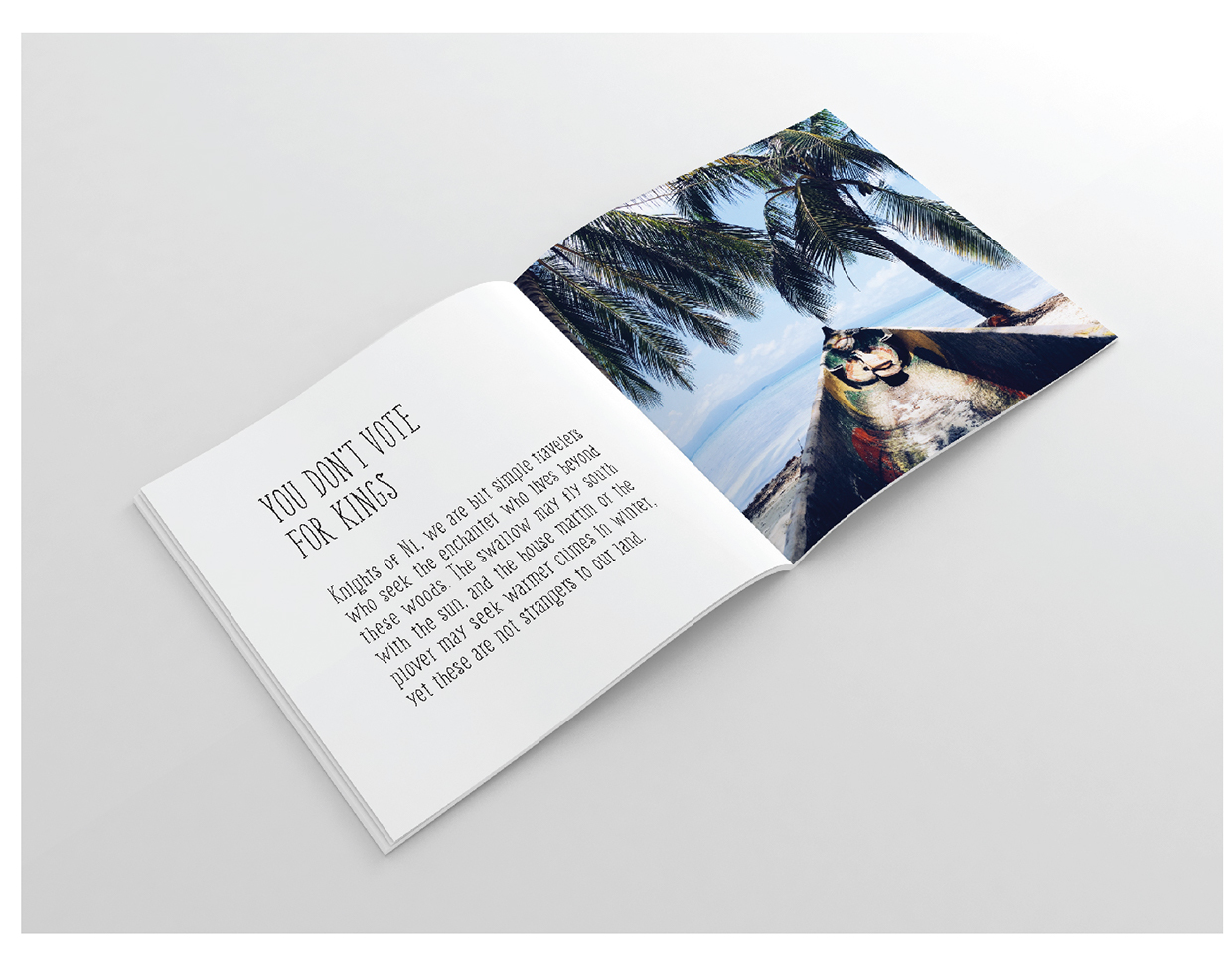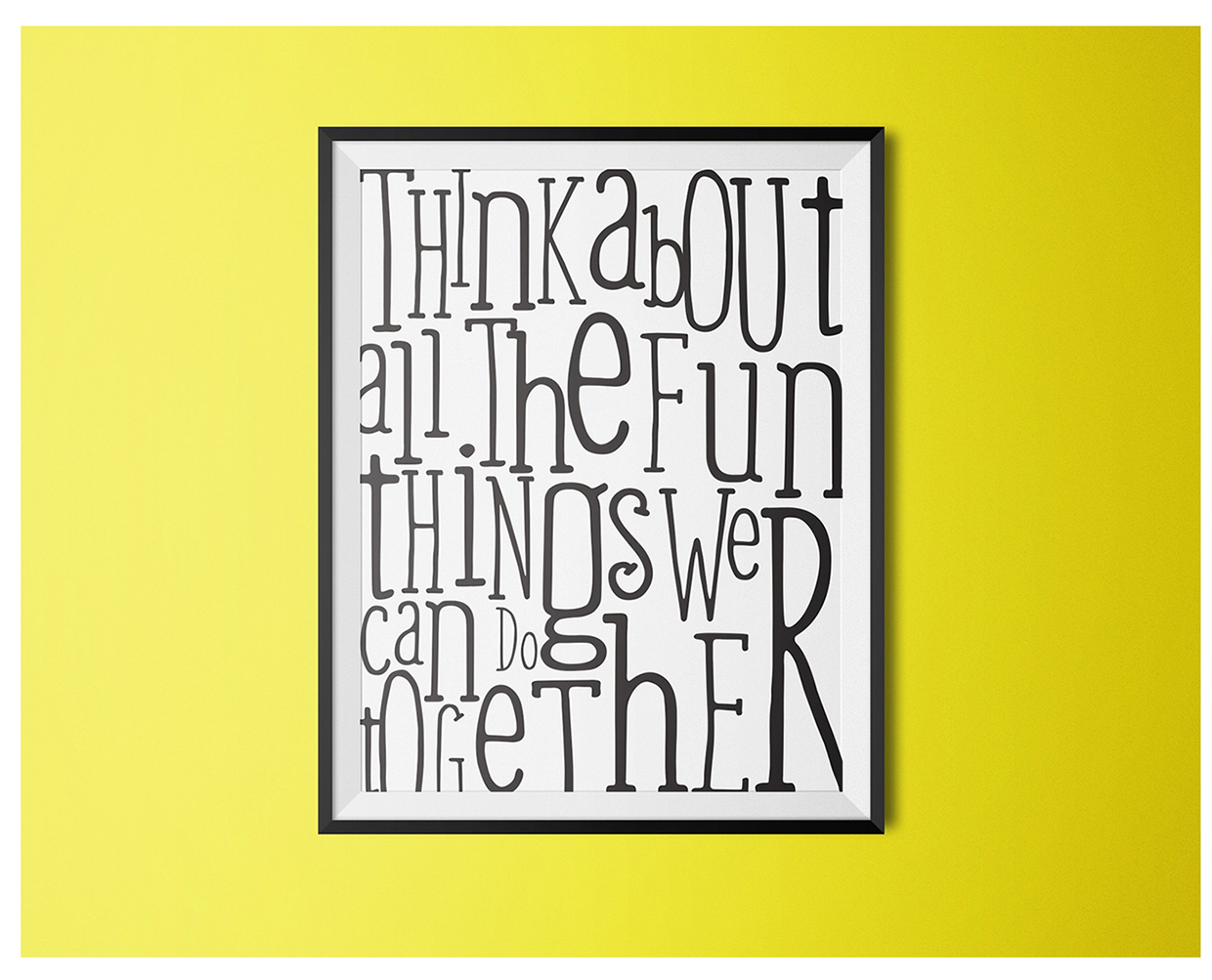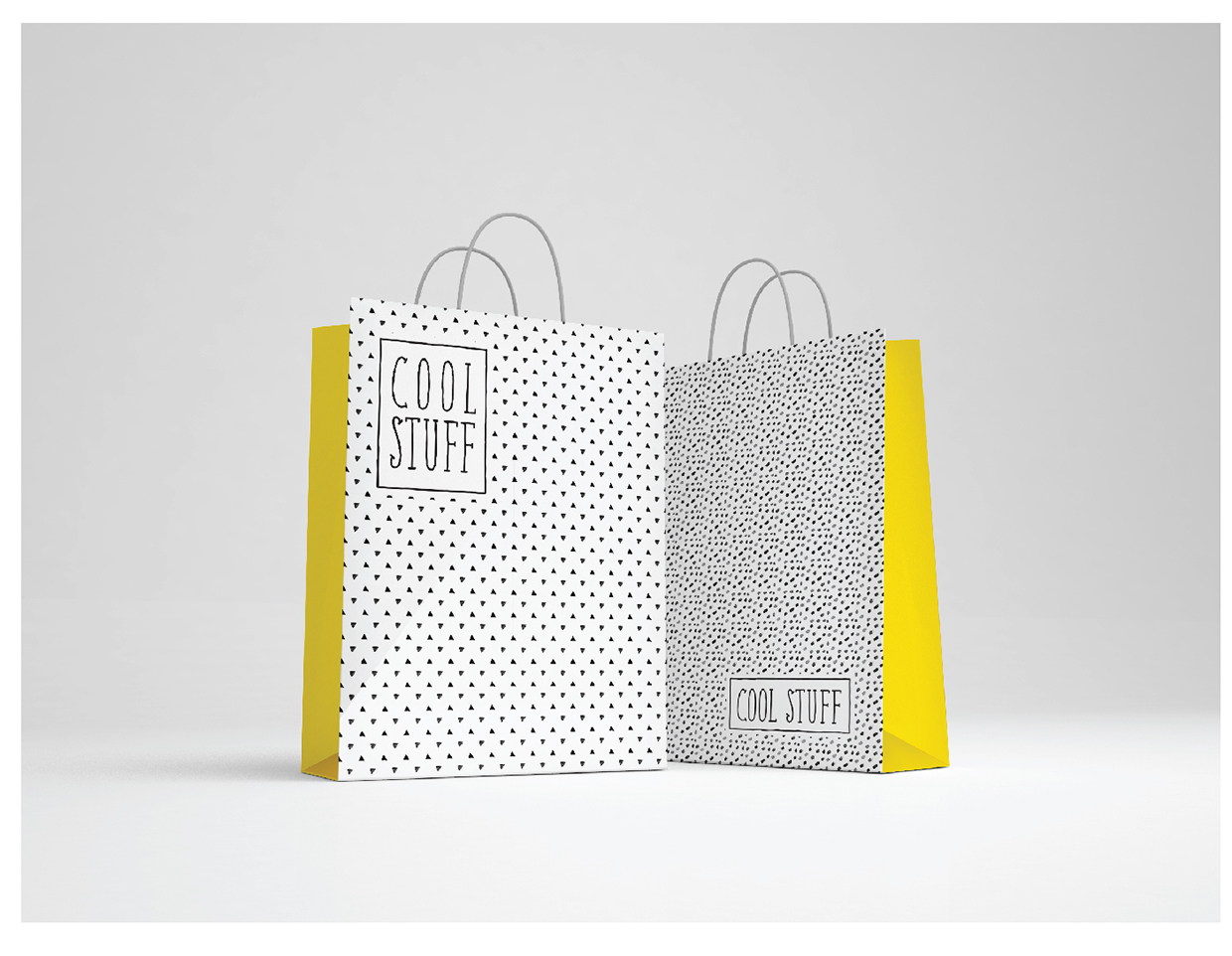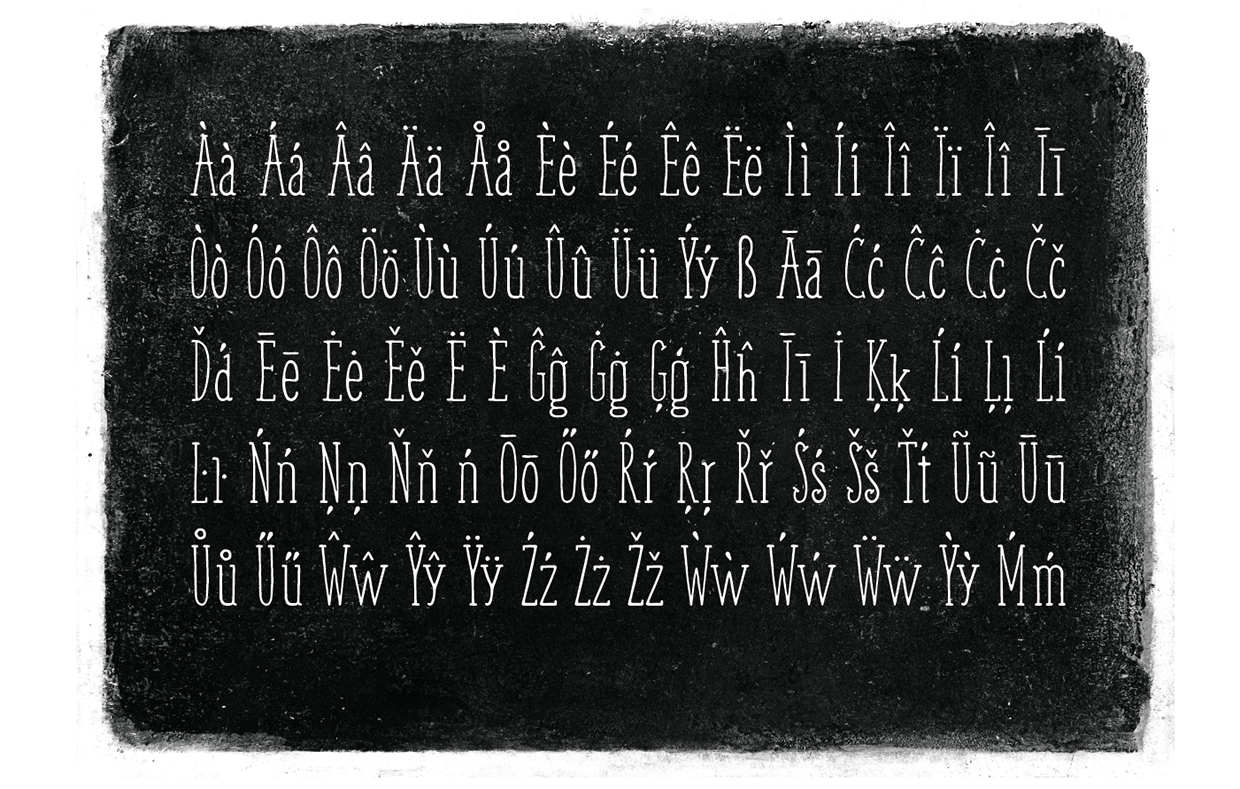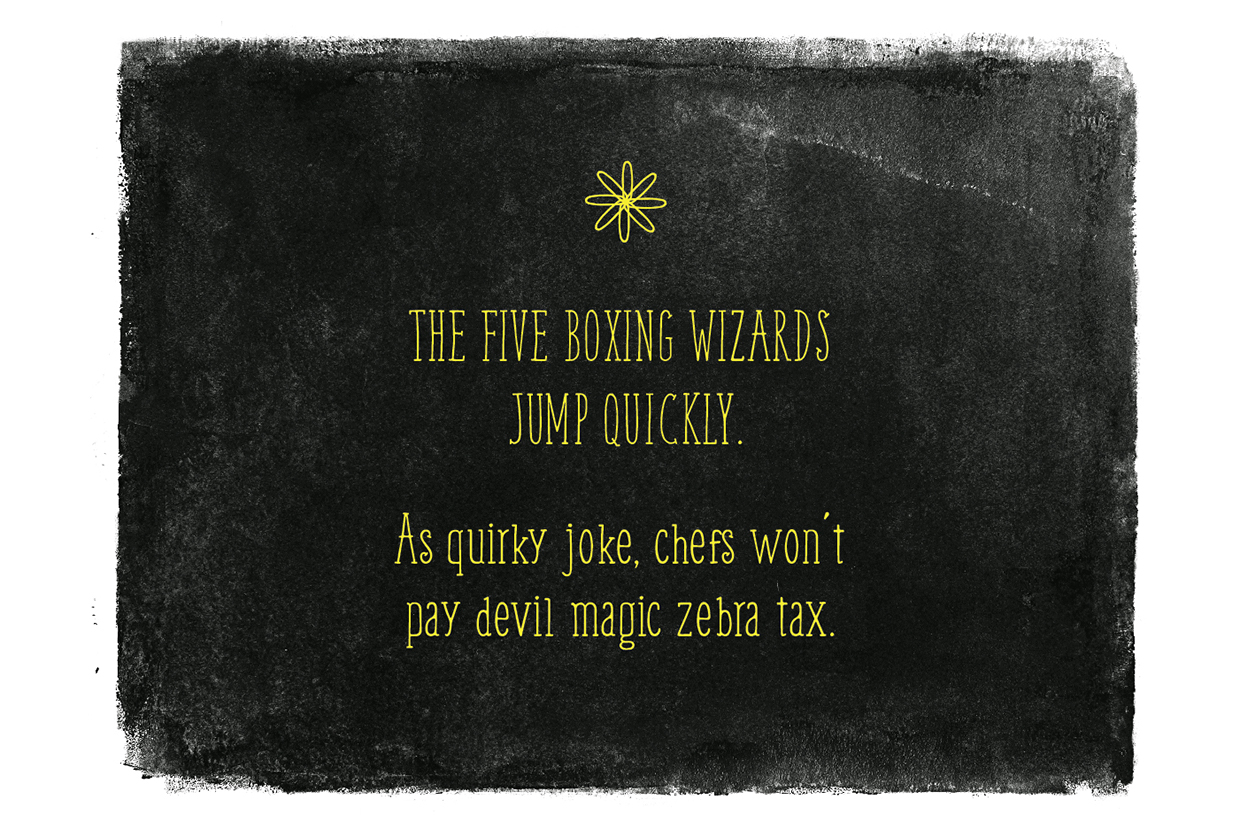
Serious in intent, legible, playful in style. When designing a font, it can be tough to nail an aesthetic that embodies all three of those things. Well, Gatis Vilaks and Evita Vilaka did it when they created Weem, a free handwriting font for all of your headline and block-of-text needs.
It has that sketchy style you look for in any handwriting font, but is clearly meant to be used in projects with a serious tone. The designers say as much. They also state that it’s intended to be used for titles, headings, and blocks of text.
Despite being free, it’s no “light” version. It comes with all of the characters and punctuation you might expect, in upper and lower case. It also has all of the accent marks, umlauts, and extra lines or squiggles you might need when writing in languages that aren’t English.